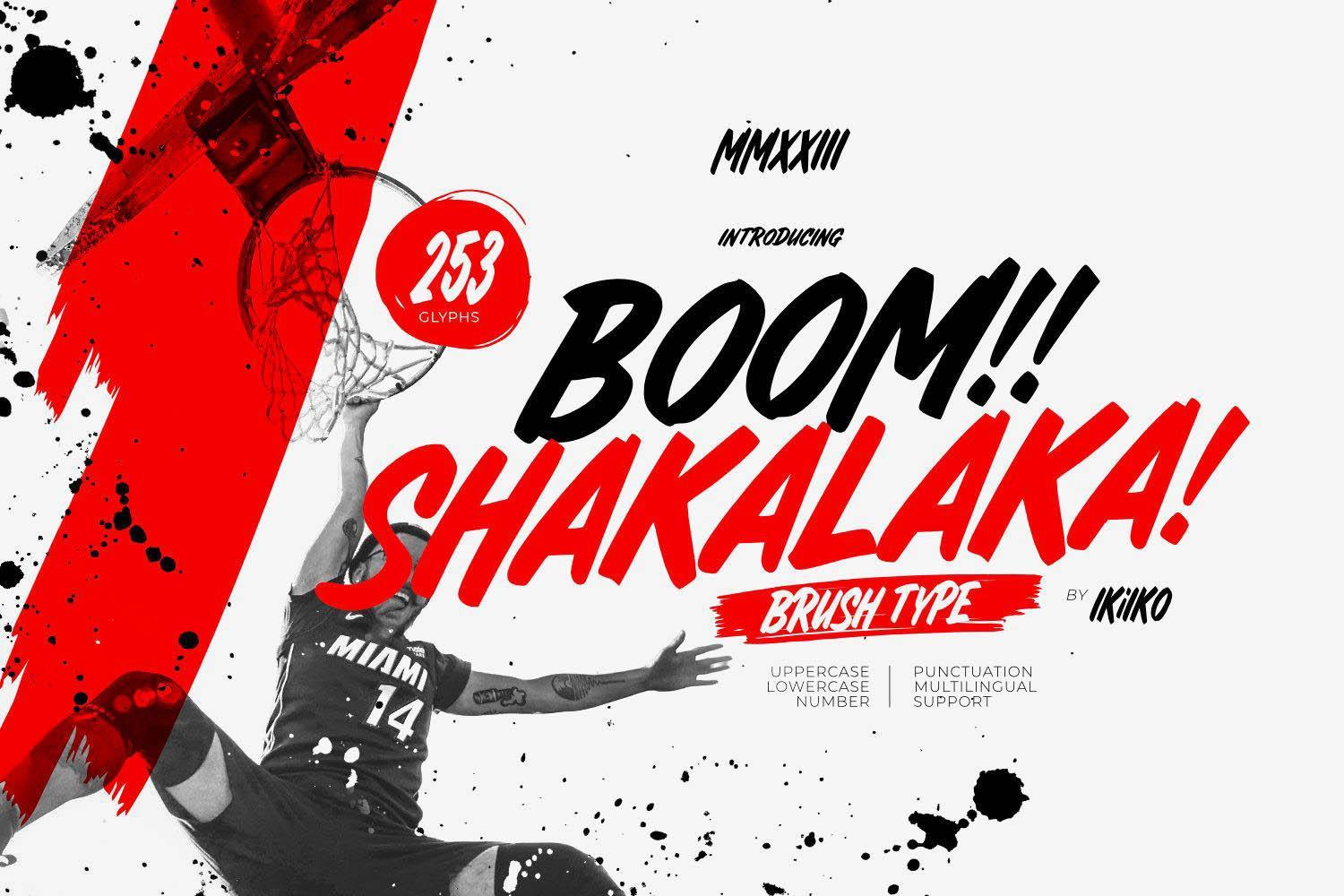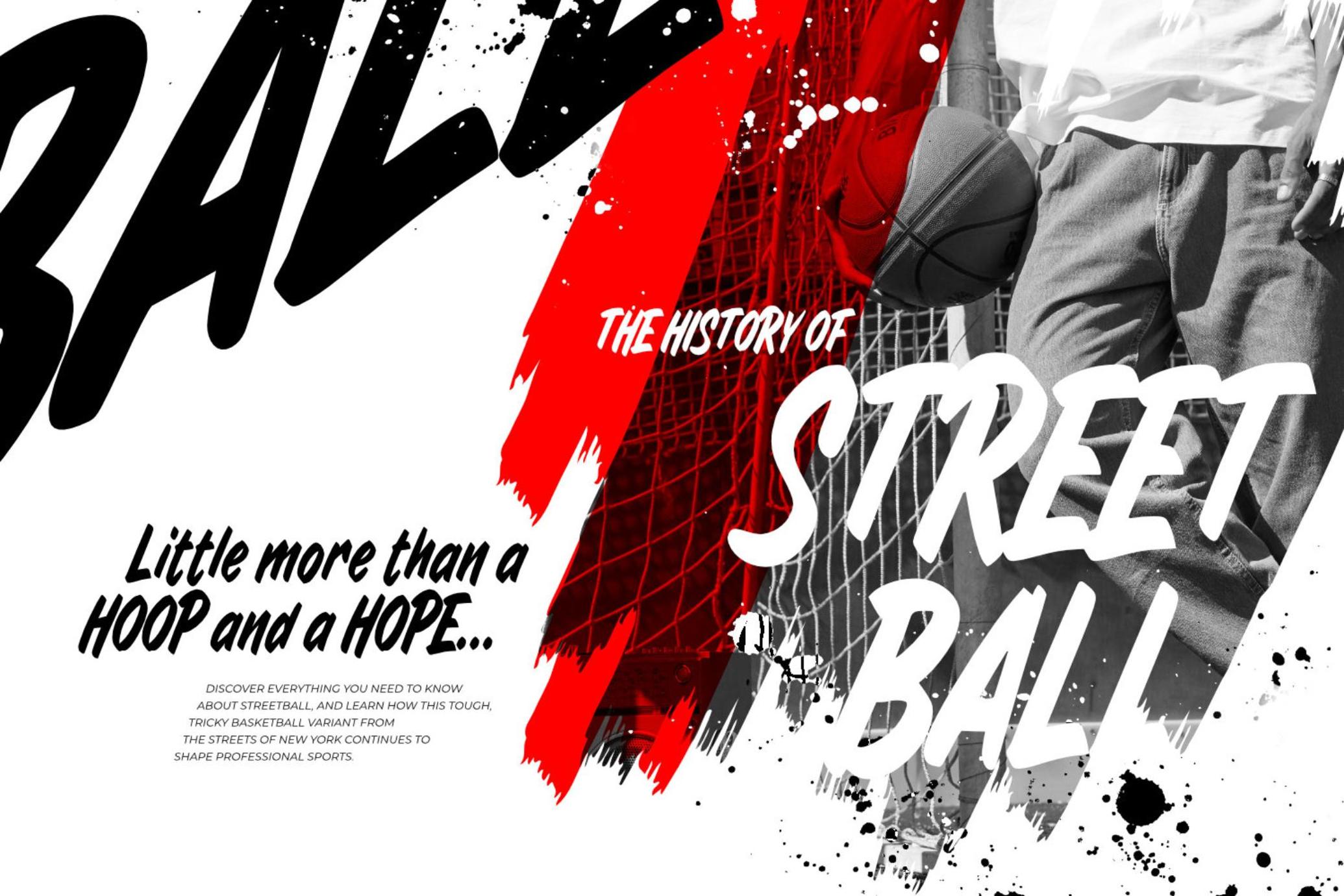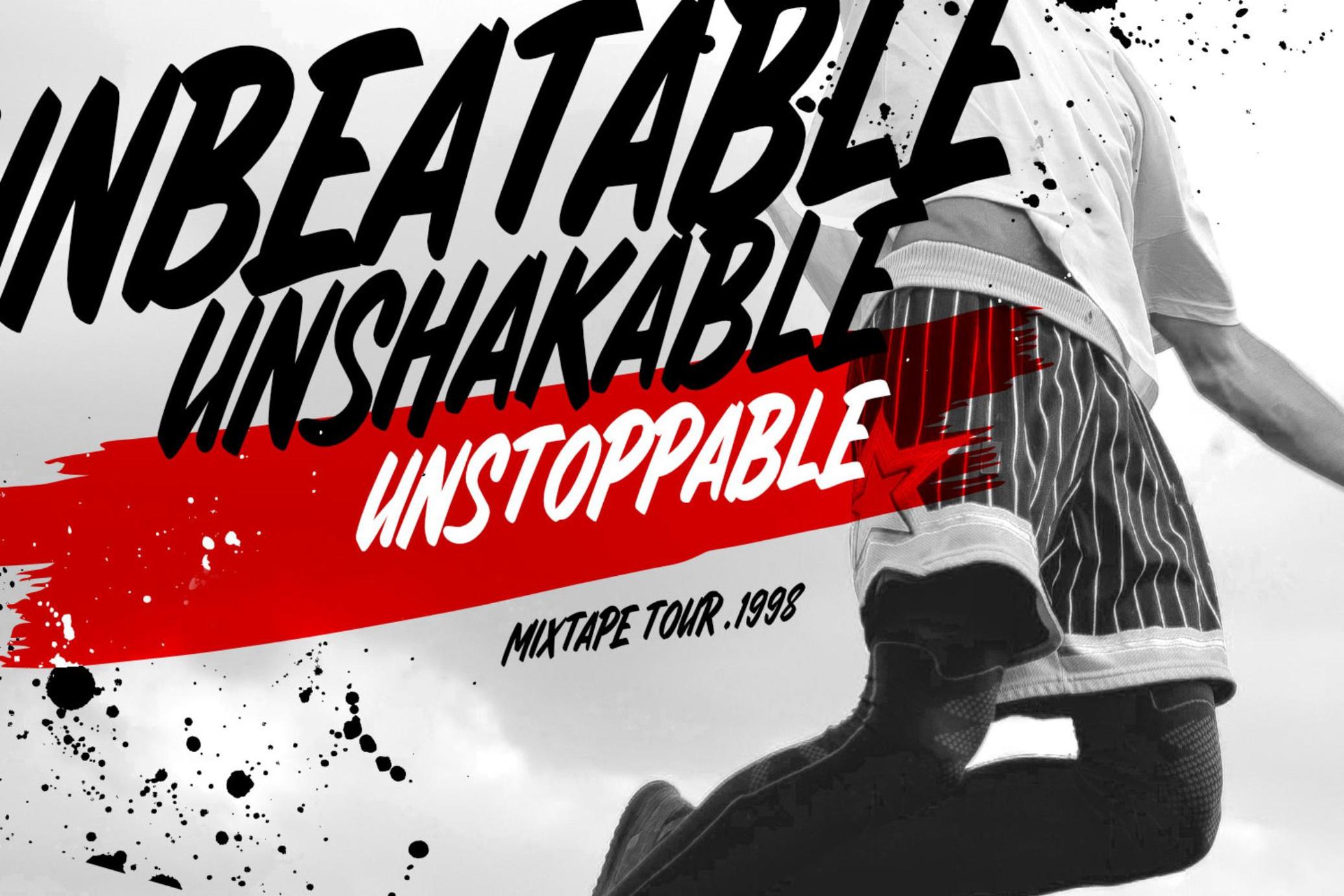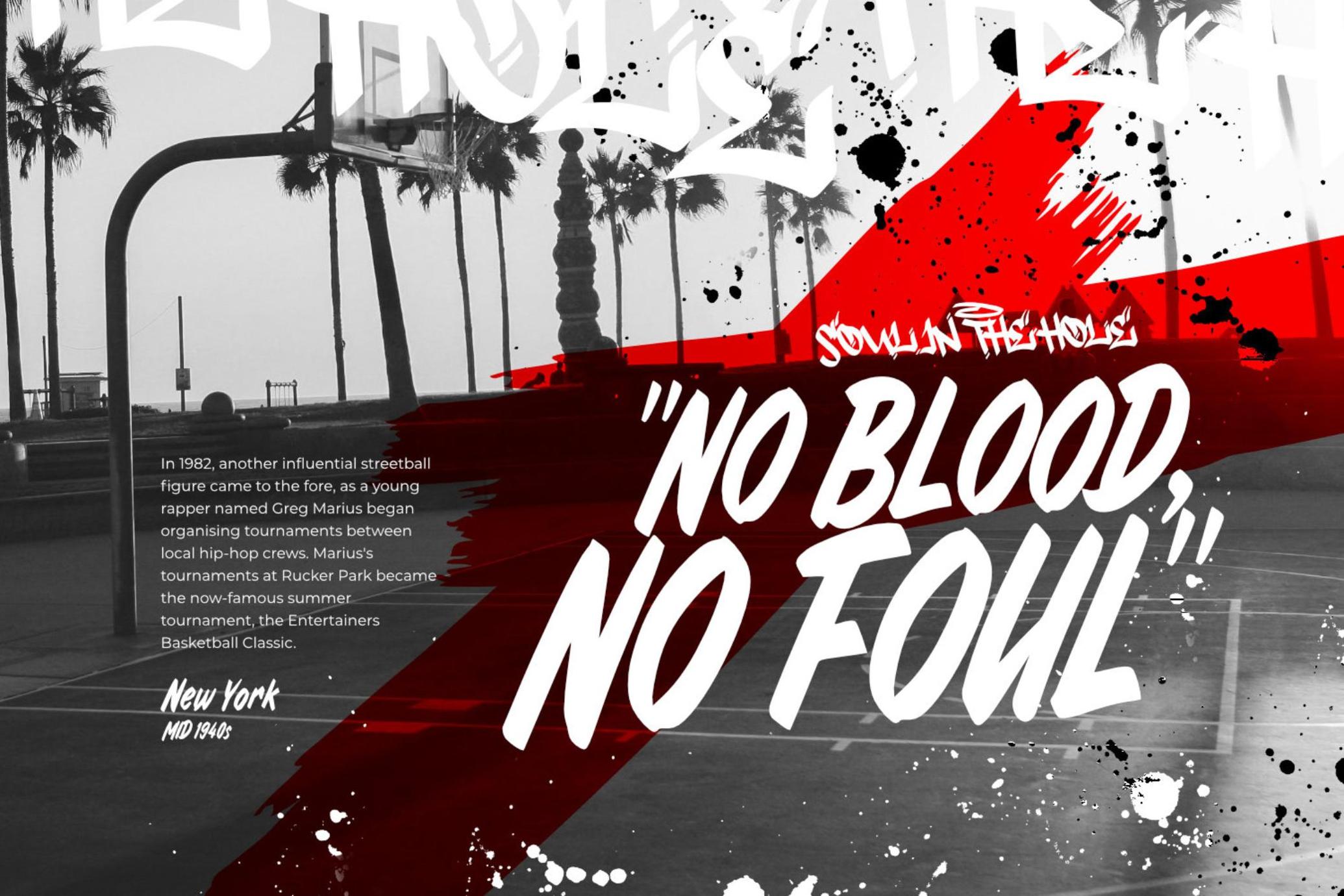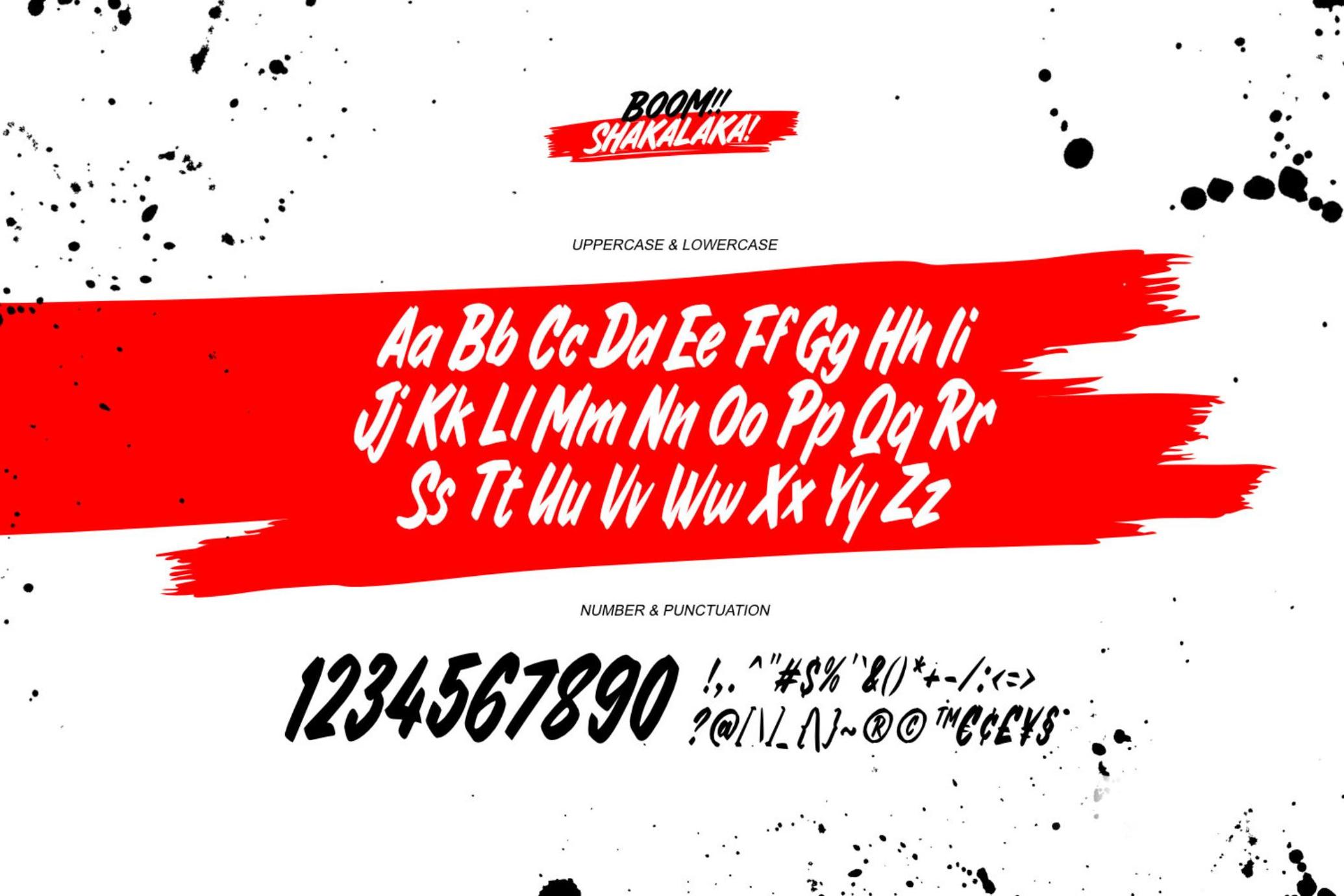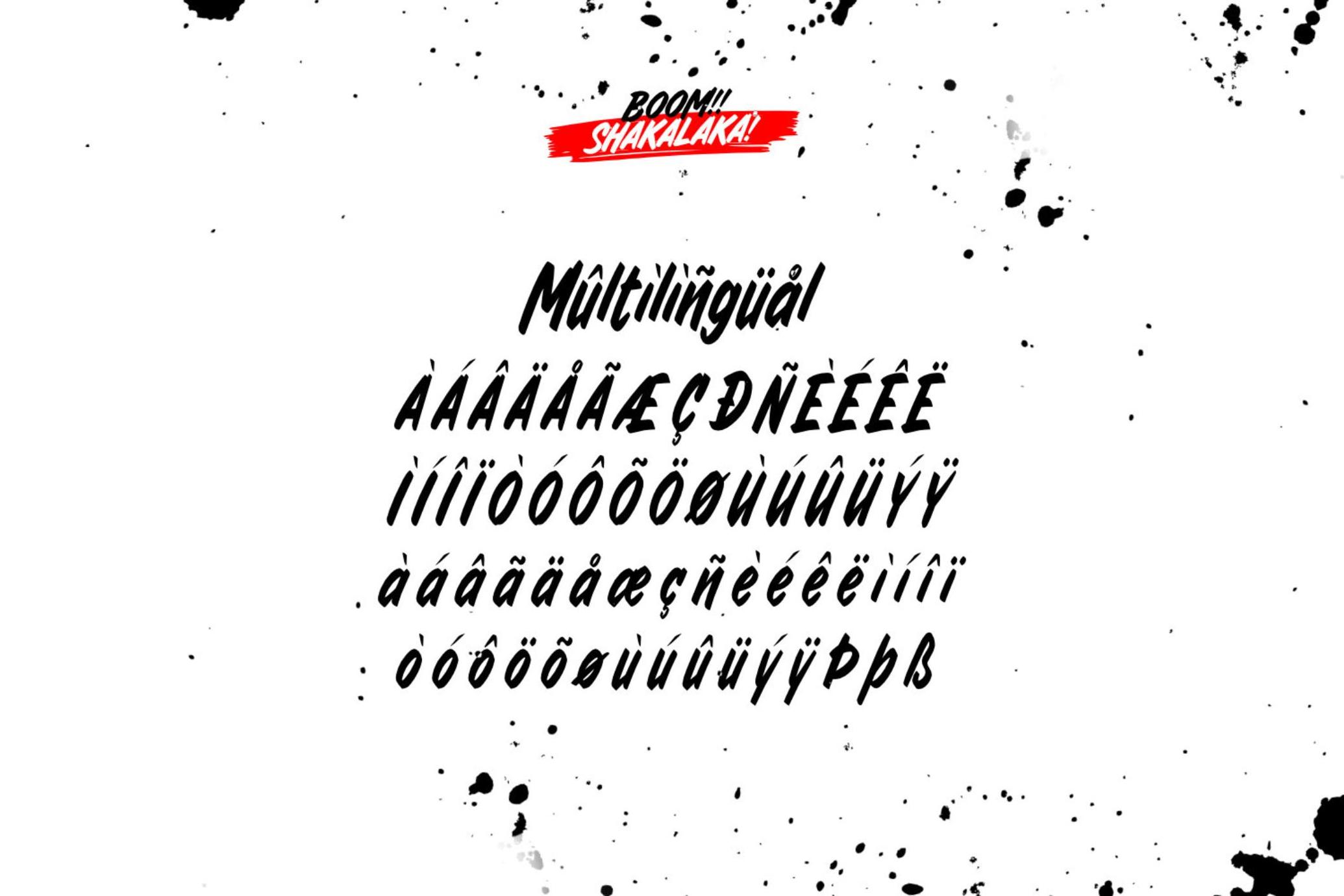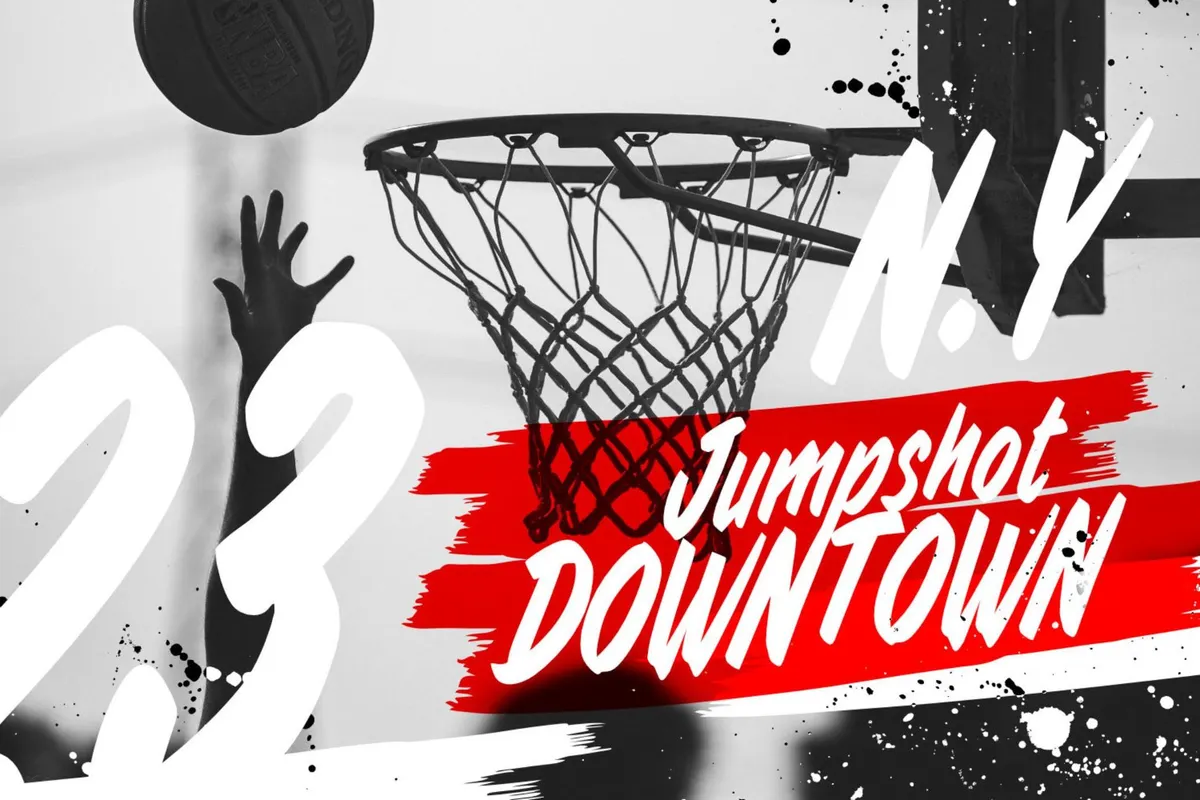
Boom Shakalaka - Brush Font
BoomShakalaka
Boom Shakalaka is a expressive brush font with touch of street culture. This type has a bold chatacter type, with shape of street culture. This type is very suitable for making a poster, magazine layout, brand logo, sleeve cover, party flyer, quotes, or simply as a stylish text overlay to any background image.